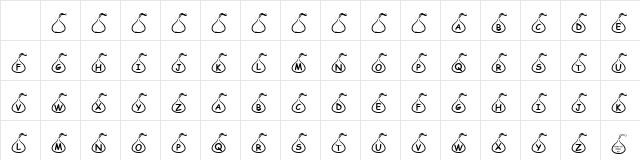
KR Candy Kiss Regular
Design Context for KR Candy Kiss Typeface
KR Candy Kiss is a composed and adaptable typeface that performs quietly and consistently across a wide range of design contexts.